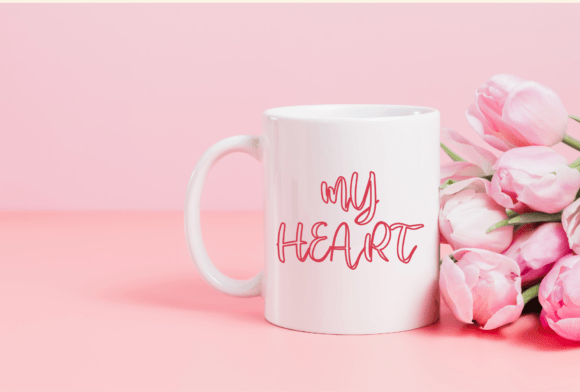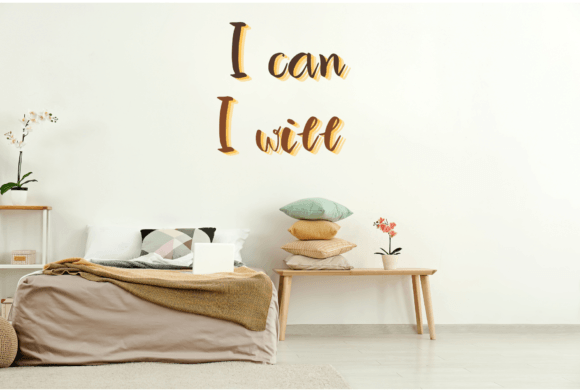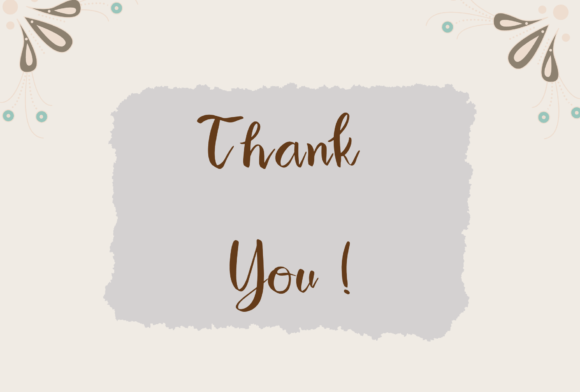
Introduction to Beauty so Good Font
As you’re brainstorming ideas for your next creative project, you stumble upon that perfect combination of words and images. Your design starts to take shape, and you’re on a roll – until you realize that the font just isn’t quite right. That’s when you start searching for the perfect script font to elevate your design to the next level.
Enter Beauty so Good Font, a stunning script font that’s sure to make your designs stand out. With its elegant characters and cursive appearance, this font is perfect for presentations, educational materials, invitations, and any other project that needs a touch of unique typography.
As a designer, you know that the right font can make all the difference in capturing your audience’s attention. And with Beauty so Good Font, you can be sure that your designs will look professional, high-quality, and visually appealing – whether you’re using a transparent background or a solid one.
Key Features of Beauty so Good Font
- High-quality design with a transparent background, ideal for creative projects requiring a clean and minimalist aesthetic.
- Unique characteristics: This font features a modern and elegant design, perfect for use in logos, headings, and body text in various creative projects.
Honest Review: Beauty so Good Font
As a designer, I’m always on the lookout for high-quality design resources to elevate my creative projects. Recently, I stumbled upon the Beauty so Good Font, and I must say, it’s a gem!
- ✨ The font is incredibly versatile, with a wide range of styles to choose from, making it perfect for various design projects.
- ✨ The transparent background feature is a game-changer, making it easy to overlay the font on top of images or other design elements.
- ⚠️ The font can be a bit overwhelming with too many styles, making it difficult to decide which one to use for a particular project.
- ⚠️ The font may not be suitable for all types of design projects, particularly those that require a more minimalist or modern aesthetic.
Overall, I’m impressed with the Beauty so Good Font. It’s a fantastic design resource that can add a touch of elegance to any creative project. With its high-quality designs and transparent background feature, it’s definitely worth considering for your next design endeavor.
Introduction to Beauty so Good Font
Tips for Getting the Most Out of Beauty so Good Font
To get the most out of the Beauty so Good Font, experiment with different font sizes, colors, and styles. Use the font in combination with other design elements, such as images and graphics, to create visually appealing designs. Also, be sure to save your designs in a high-resolution format to ensure the best results.
Common Use Cases for Beauty so Good Font
The Beauty so Good Font is ideal for a wide range of creative projects, including graphic design, digital art, and print design. It can be used in logos, brochures, business cards, and other marketing materials, as well as in digital projects, such as websites and social media graphics.
Does the Beauty so Good Font have a transparent background?
No, the Beauty so Good Font is a solid font with a white background. However, you can use a design tool or software to create a transparent background or adjust the font’s opacity to suit your design needs.